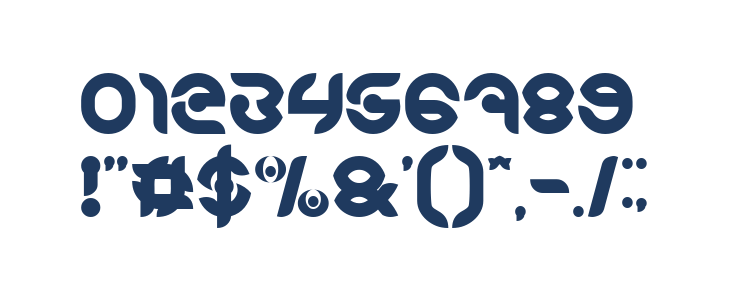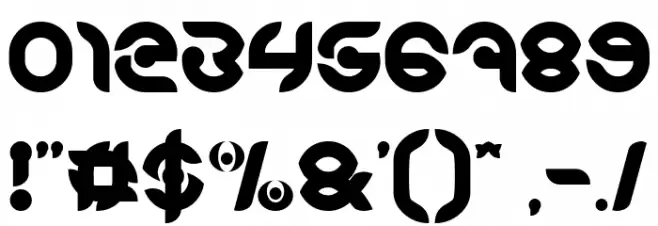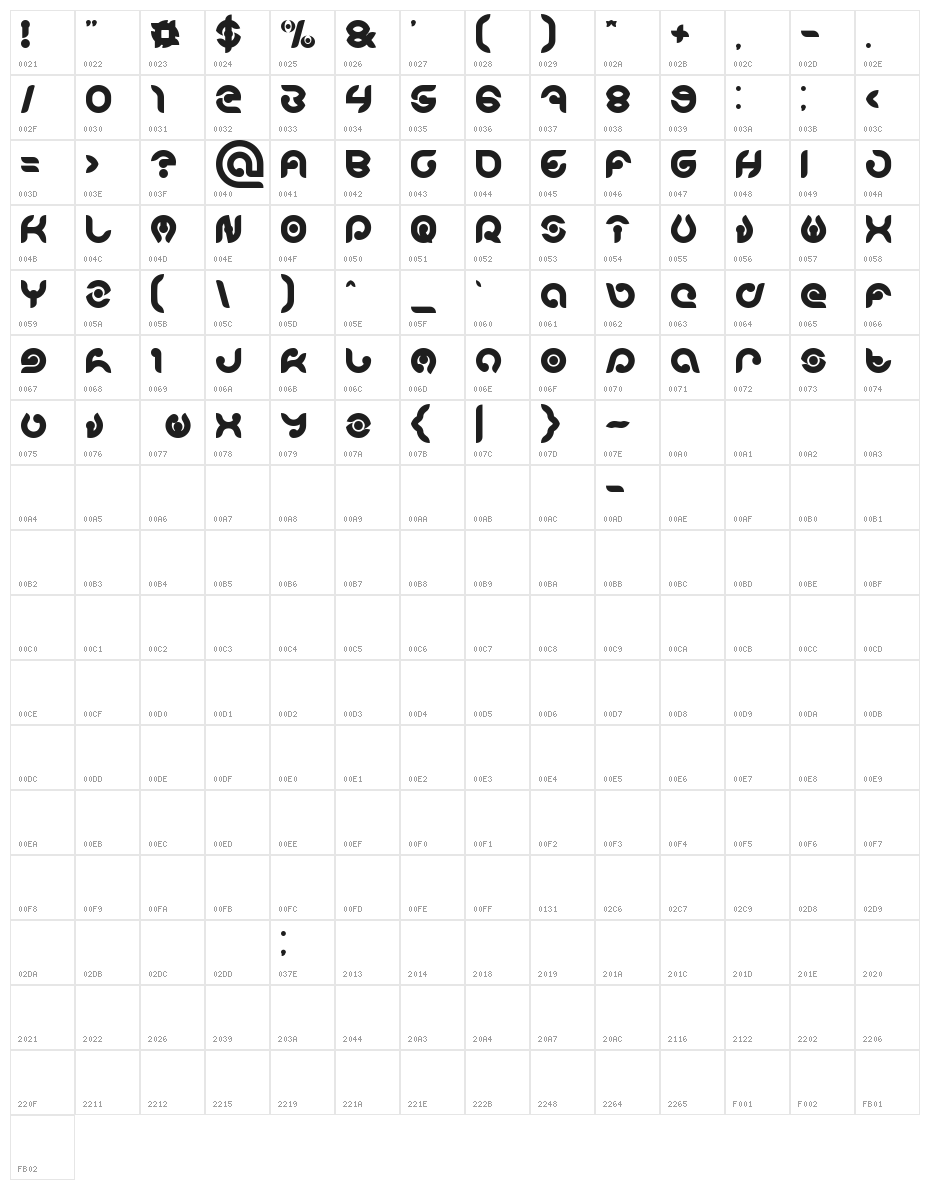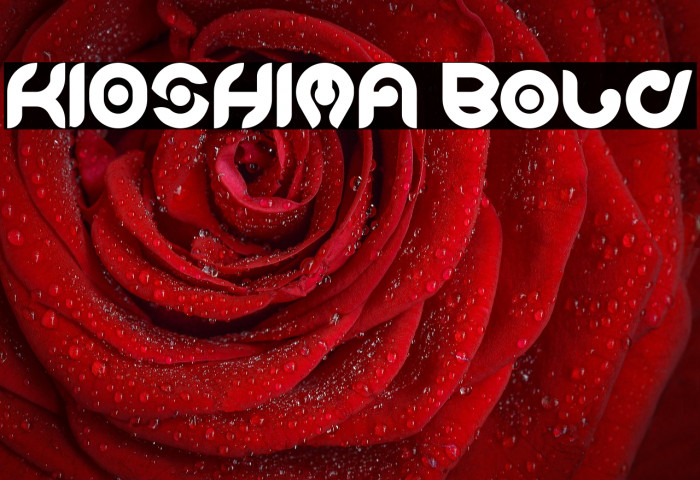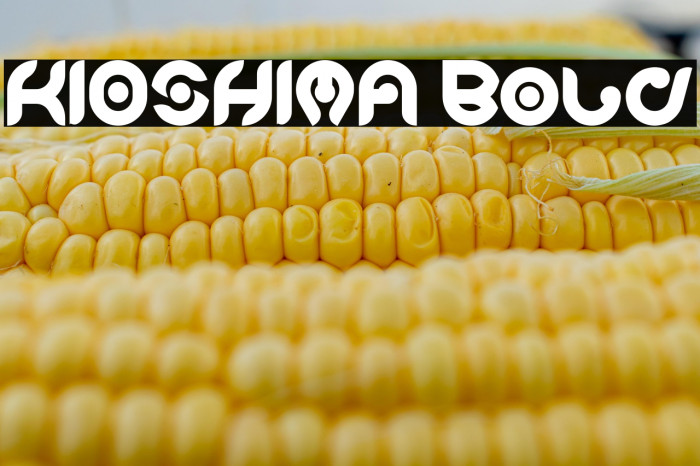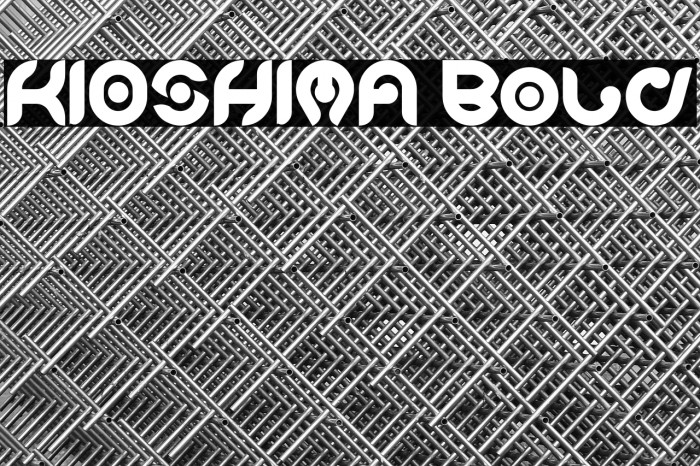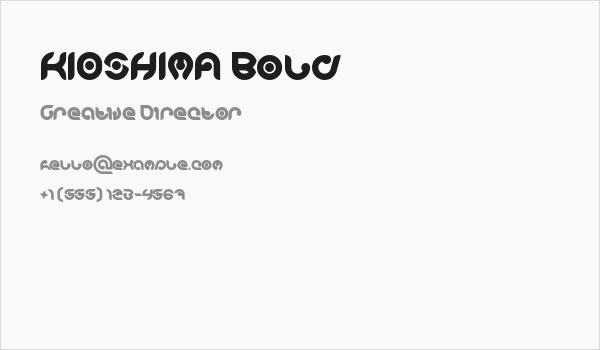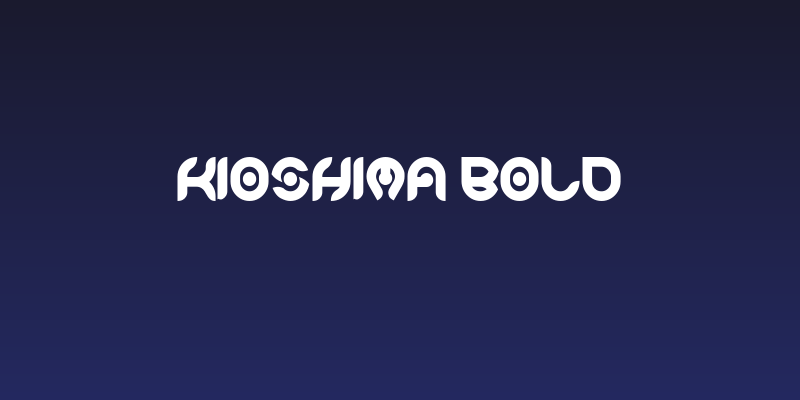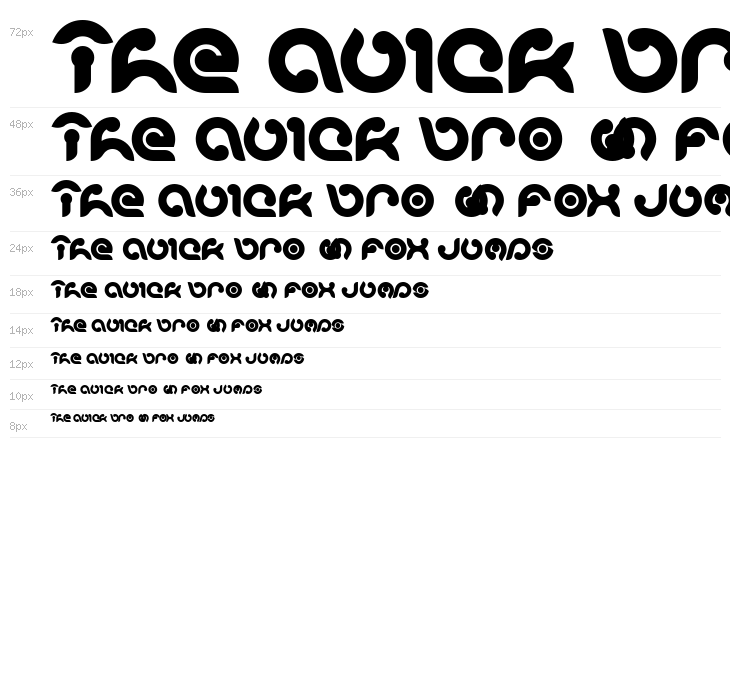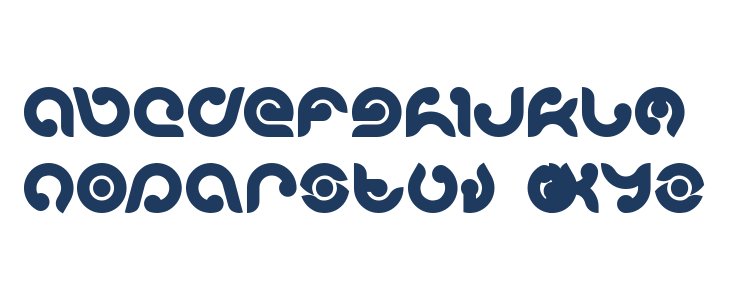
KIOSHIMA Bold Font
KIOSHIMA Bold Description
This bold and striking font features a unique, futuristic design with thick, rounded strokes and geometric shapes. The characters are crafted with a blend of circular and angular elements, creating a visually captivating and modern aesthetic. The uppercase and lowercase letters maintain a consistent style, while the numerals and special characters complement the overall design. The font's boldness and distinctive appearance make it ideal for attention-grabbing projects.
| Proposed Projects | Ideal for sci-fi themed designs, technology branding, video game titles, and modern posters. |